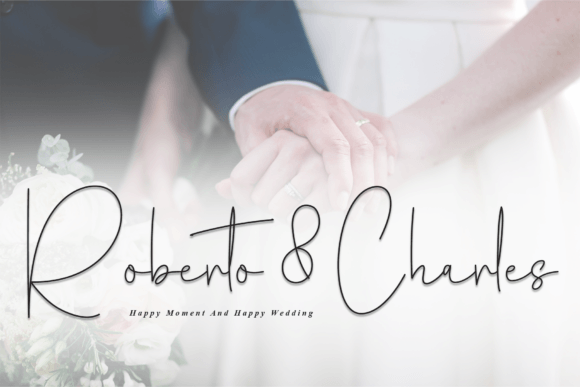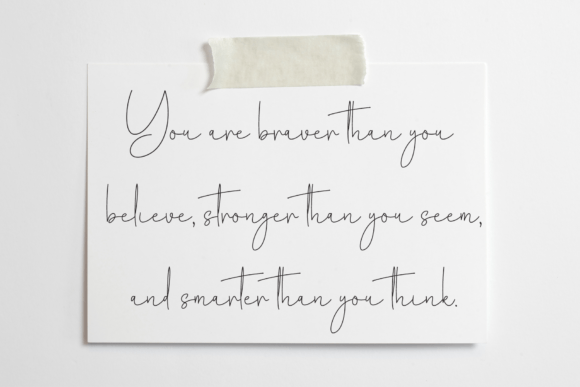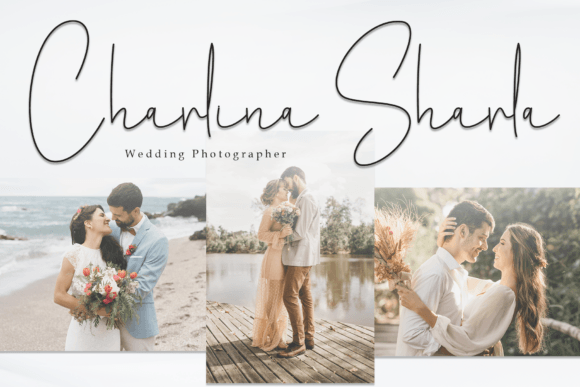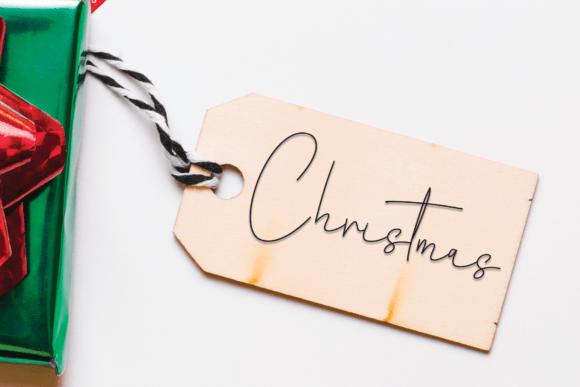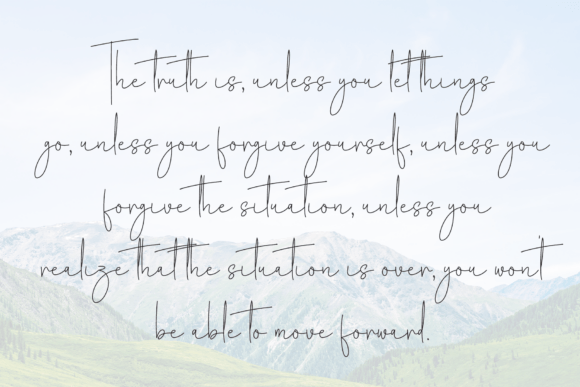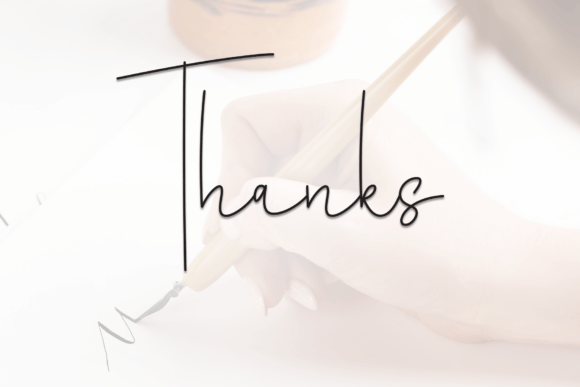
The Elegance of Calligraphy Font: A Designer’s Delight
I’ll never forget the time I was working on a wedding invitation project, and my client asked for a font that would make the event feel like a fairytale come true. I scoured the internet, tried out countless fonts, but nothing seemed quite right. That was until I stumbled upon the Calligraphy Font. Its delicate, elegant strokes and perfectly balanced letters won me over, and it instantly became the star of the show. In this article, I’ll share my love for this beautiful font, its features, and how to make the most of it in your designs.
What I Love About Calligraphy Font
Here’s what makes Calligraphy Font a standout:
- ✨ Elegant and Refined: Each letter is crafted with precision, making it perfect for projects that demand sophistication.
- ✅ Versatile: Whether you’re designing wedding invitations, branding materials, or digital content, this font adapts seamlessly.
- 🎨 Aesthetic Appeal: The flowing strokes and classic feel evoke a sense of tradition and luxury.
While Calligraphy Font is a gem, it’s not without its quirks:
- 🤔 Legibility at Small Sizes: Like many script fonts, it can become tricky to read when scaled down. Make sure to test it at various sizes to ensure clarity.
- ⚠️ Overuse of Embellishments: While the font’s ornate details are beautiful, using them excessively can make your design look cluttered. Balance is key.
The Backstory of Calligraphy Font
Calligraphy Font was inspired by the ancient art of calligraphy, where skilled artisans would spend years perfecting their craft. The font’s creator, a typographer with a passion for history, sought to capture the essence of these elegant scripts in a digital format. The result is a font that’s both timeless and versatile.
Here are some common questions about using Calligraphy Font:
| Is Calligraphy Font suitable for body text? | While it’s beautiful, Calligraphy Font is best used for headings and titles due to its script nature. For body text, consider a more readable font. |
| Does Calligraphy Font support OpenType features? | Yes, it does! You can access a range of stylistic alternates, swashes, and glyphs to enhance your design. |
In conclusion, Calligraphy Font is a stunning addition to any designer’s toolkit. Its elegant strokes, versatile style, and rich history make it perfect for a wide range of projects. With a bit of practice and experimentation, you’ll be creating breathtaking designs in no time!